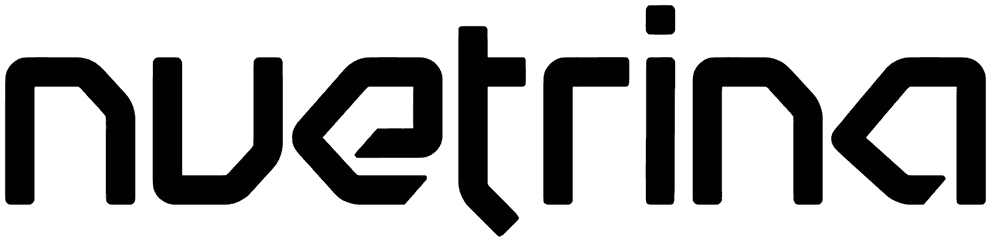
Nuetrina Font
With a sci-fi font like Nuetrina, you can lend your texts a technological and robotic vibe. This monoline font with its square curves and soft edges will undoubtedly make a distinguished face for many modern projects and subjects. This techno font with no support for uppercase letters can be a specific item for science fiction design, posters, and the rest.
The first characters from Nuetrina came from a logo design I did for a client. It wasn’t chosen as the logo. Oh well. I decided to build out the entire alphabet. Before I knew it an entire display typeface was created. It’s lower case only. Sorry, no shouting with this one. Works well for logos, headlines and short passages of copy. Free to use for personal projects, one-time donation via PayPal for commercial projects.